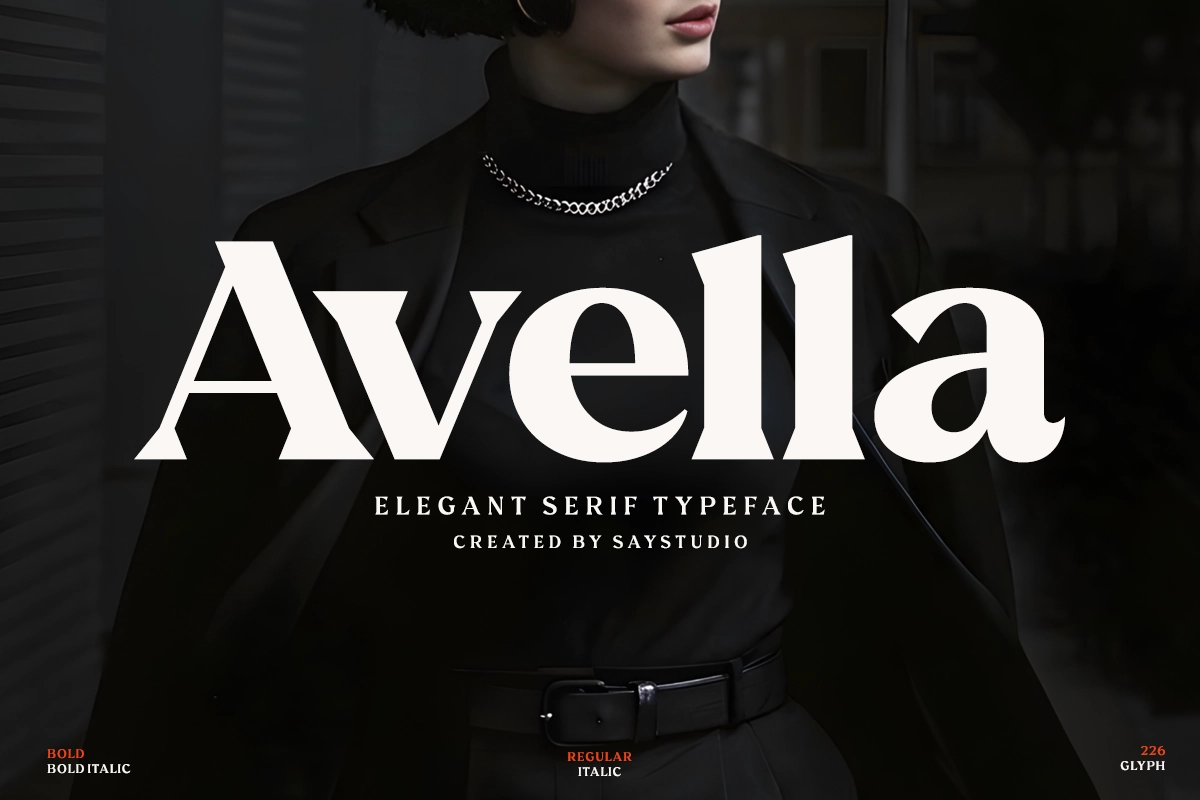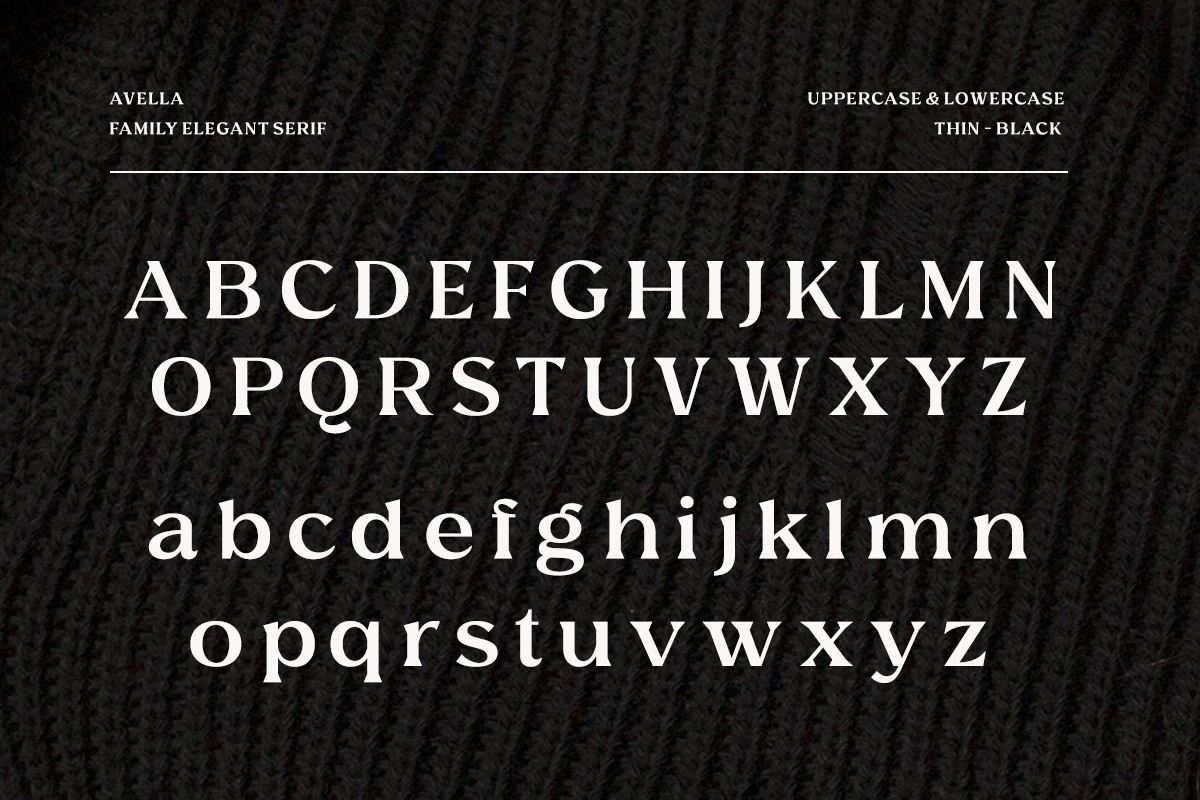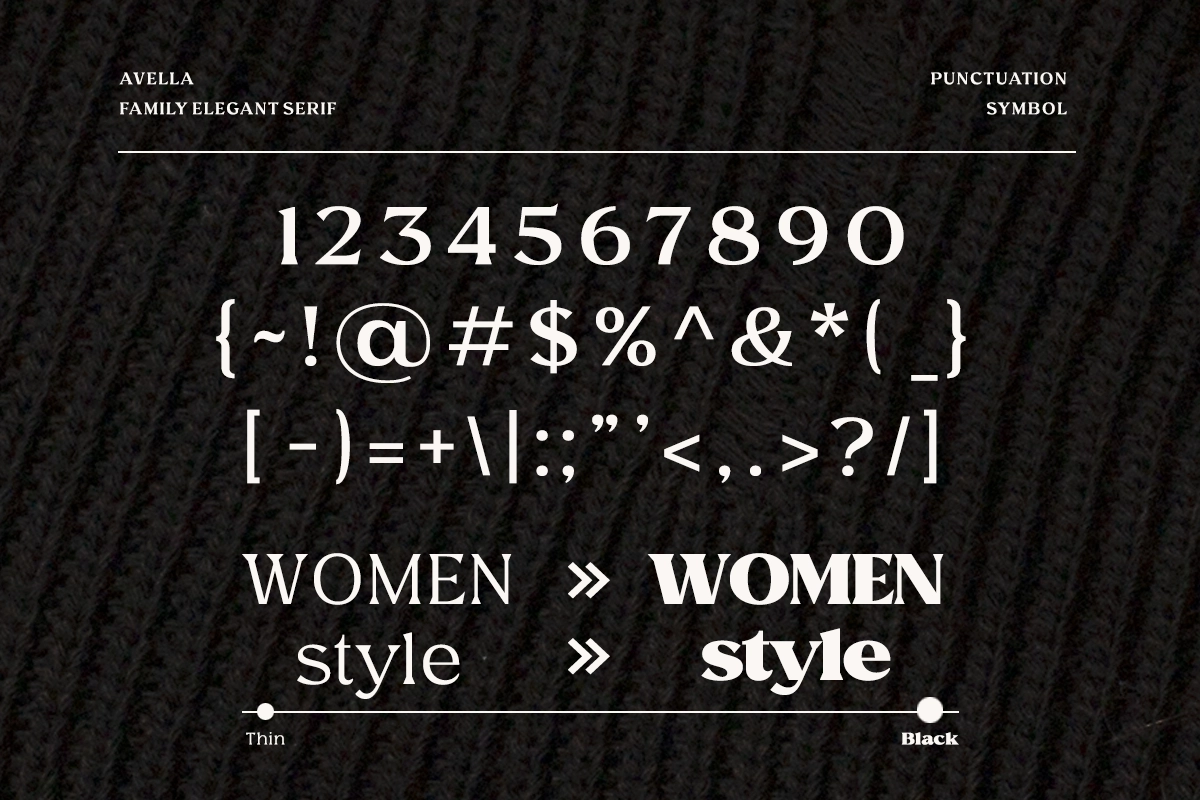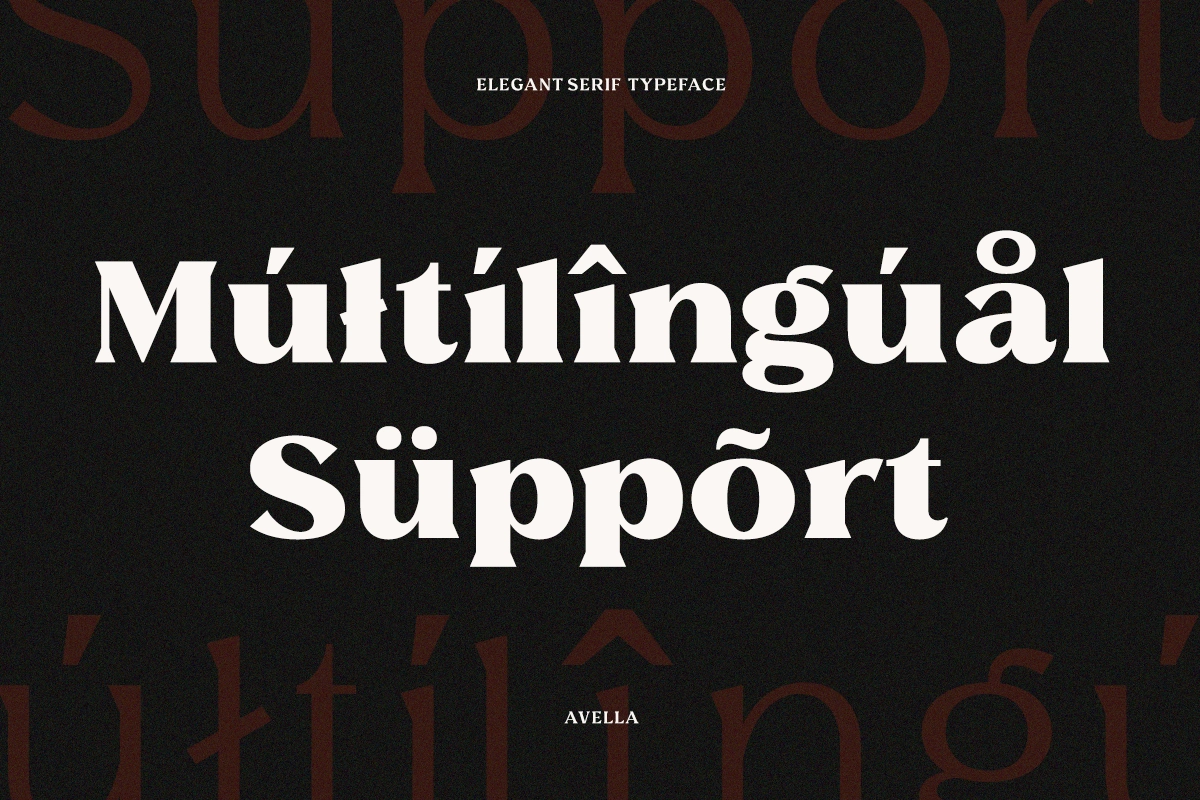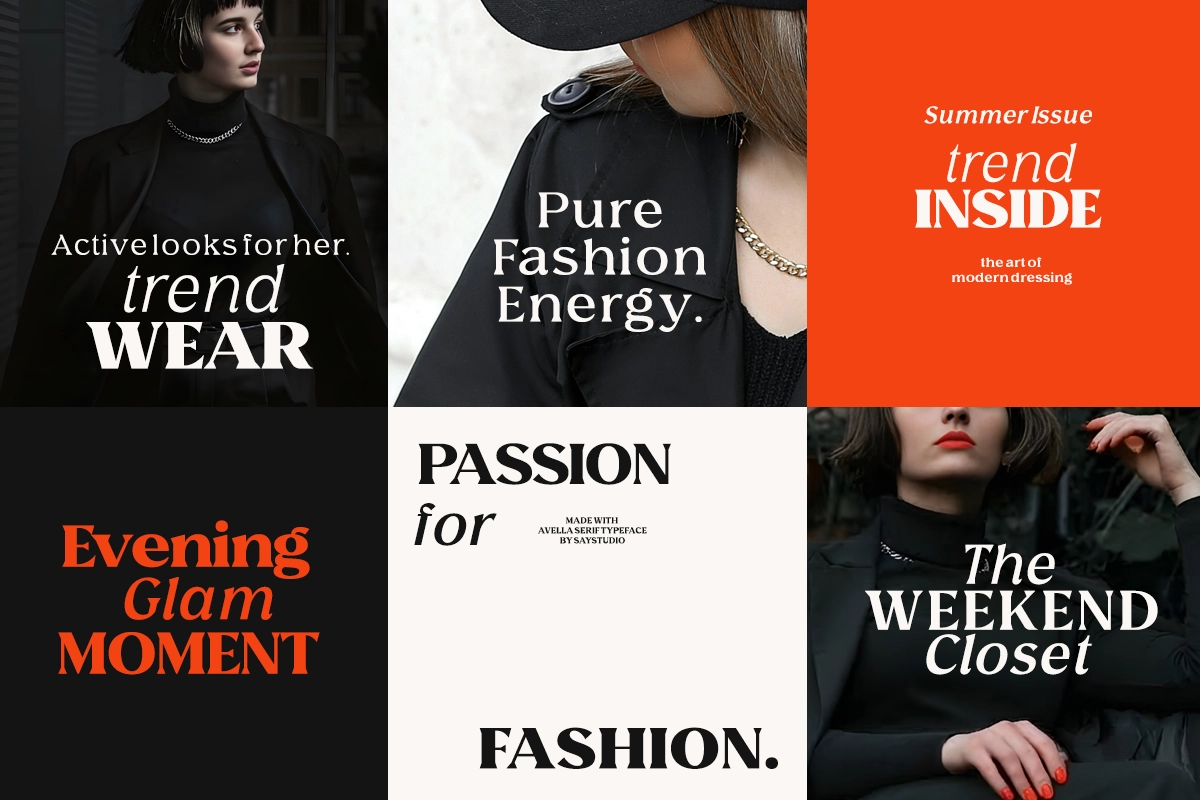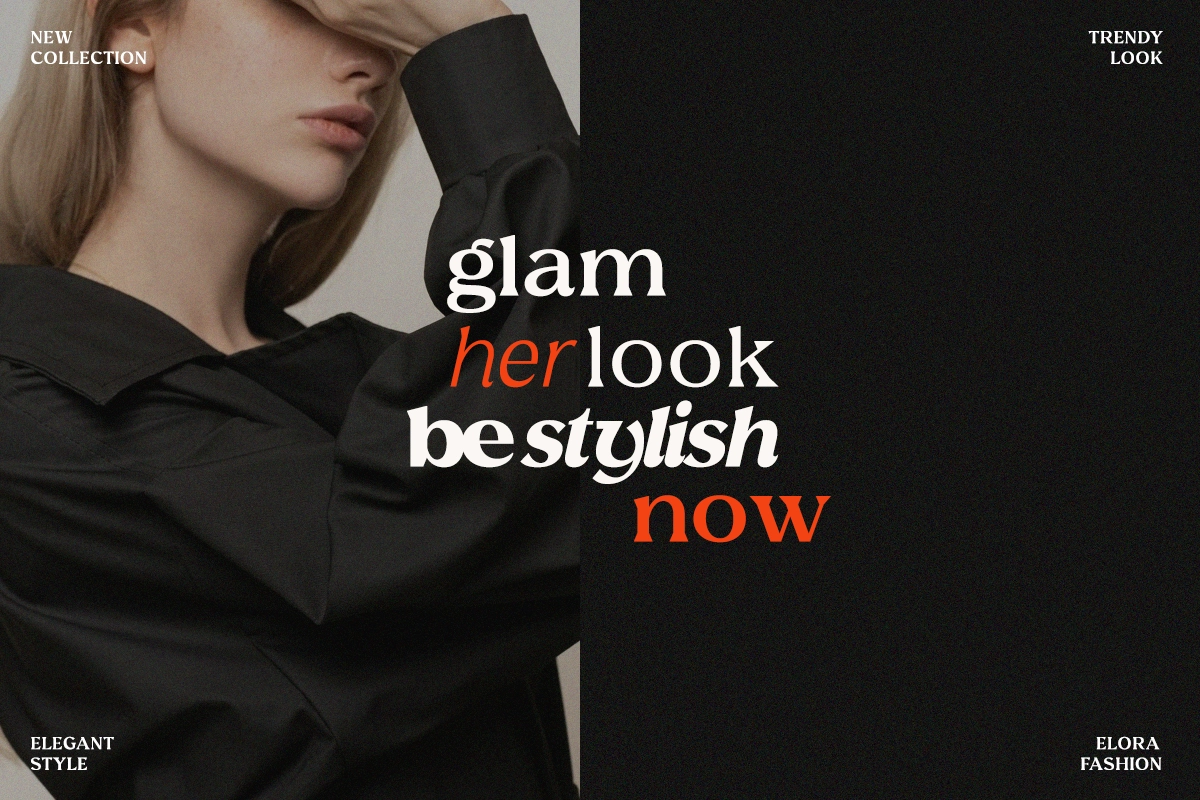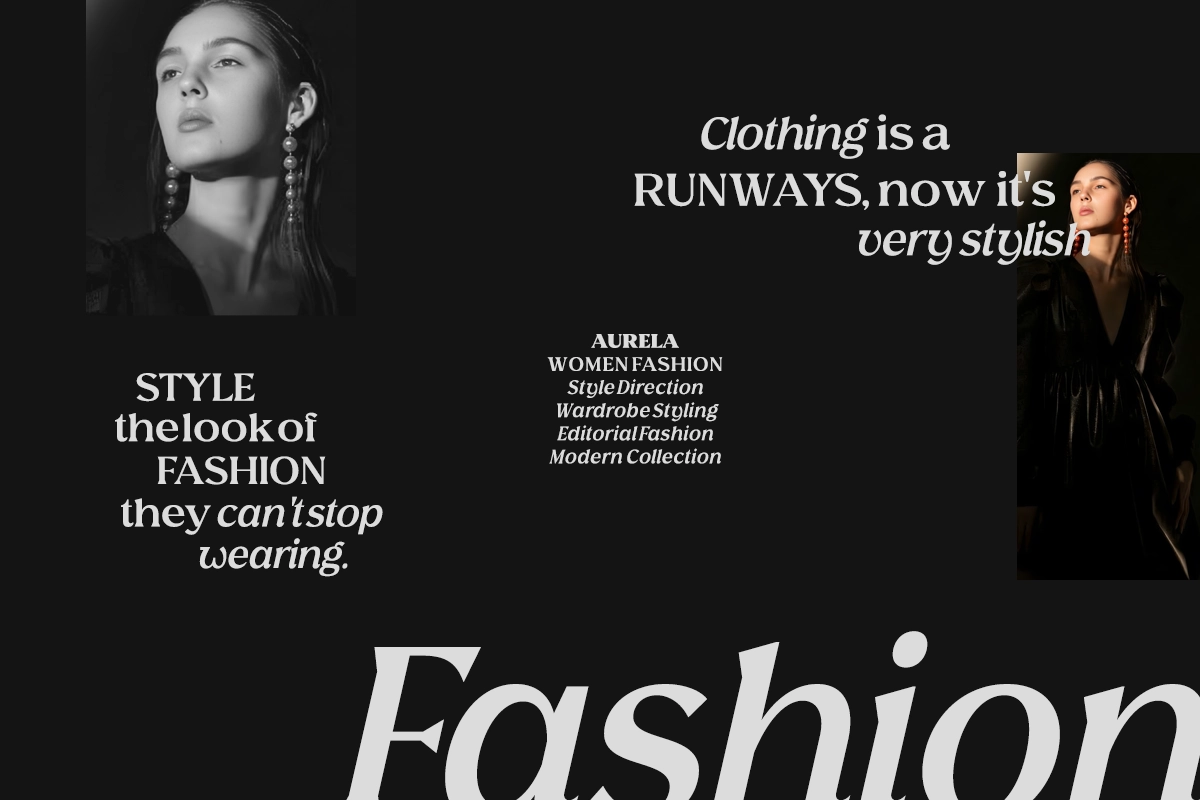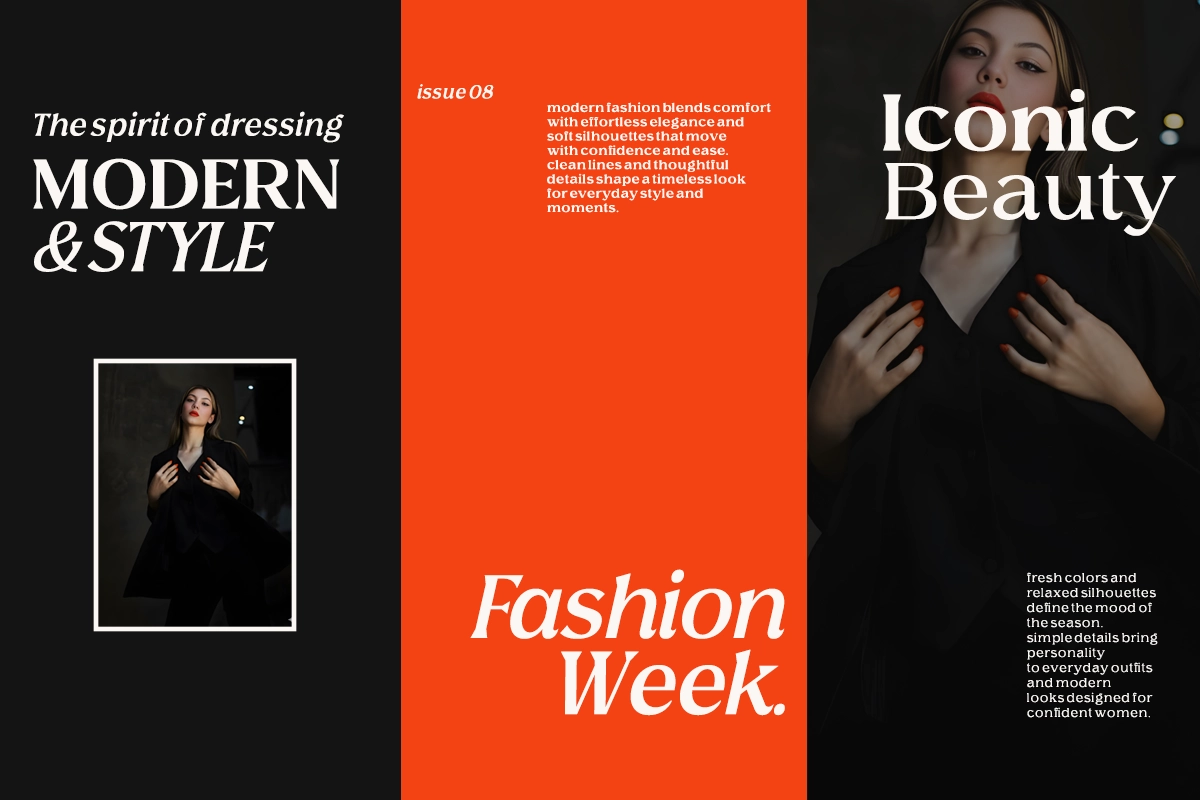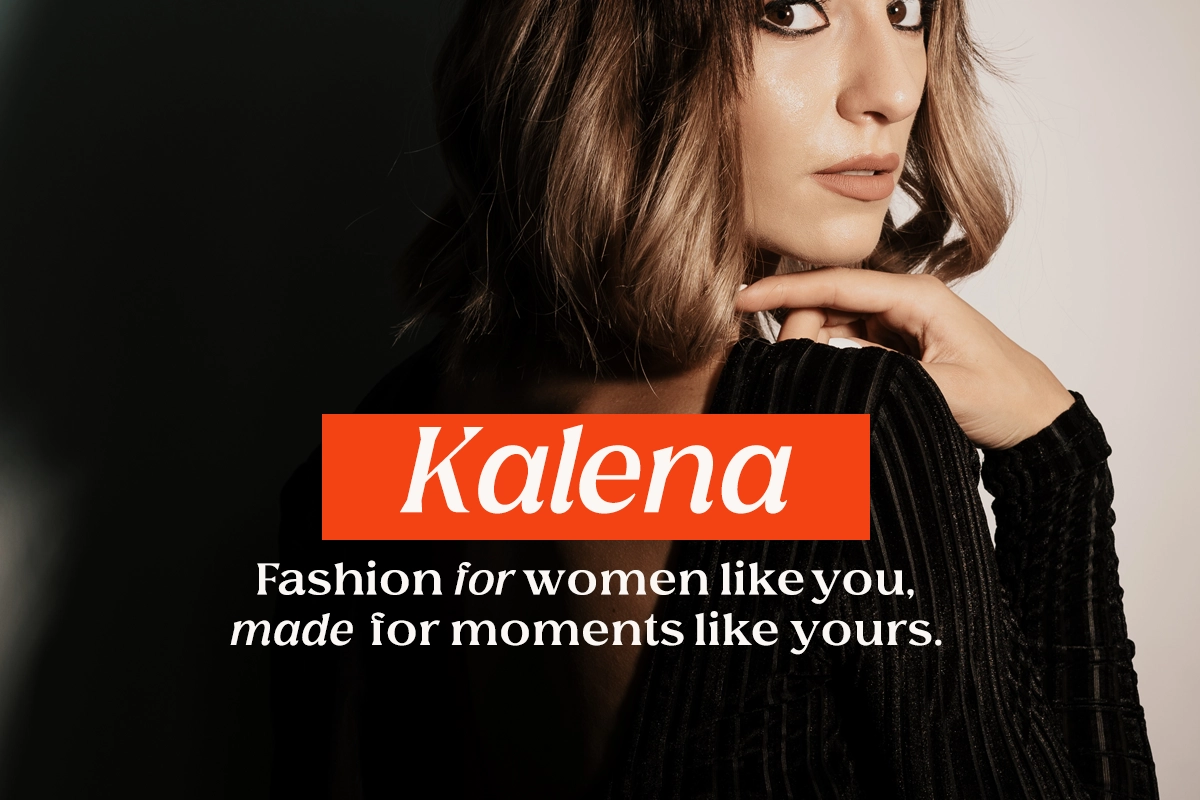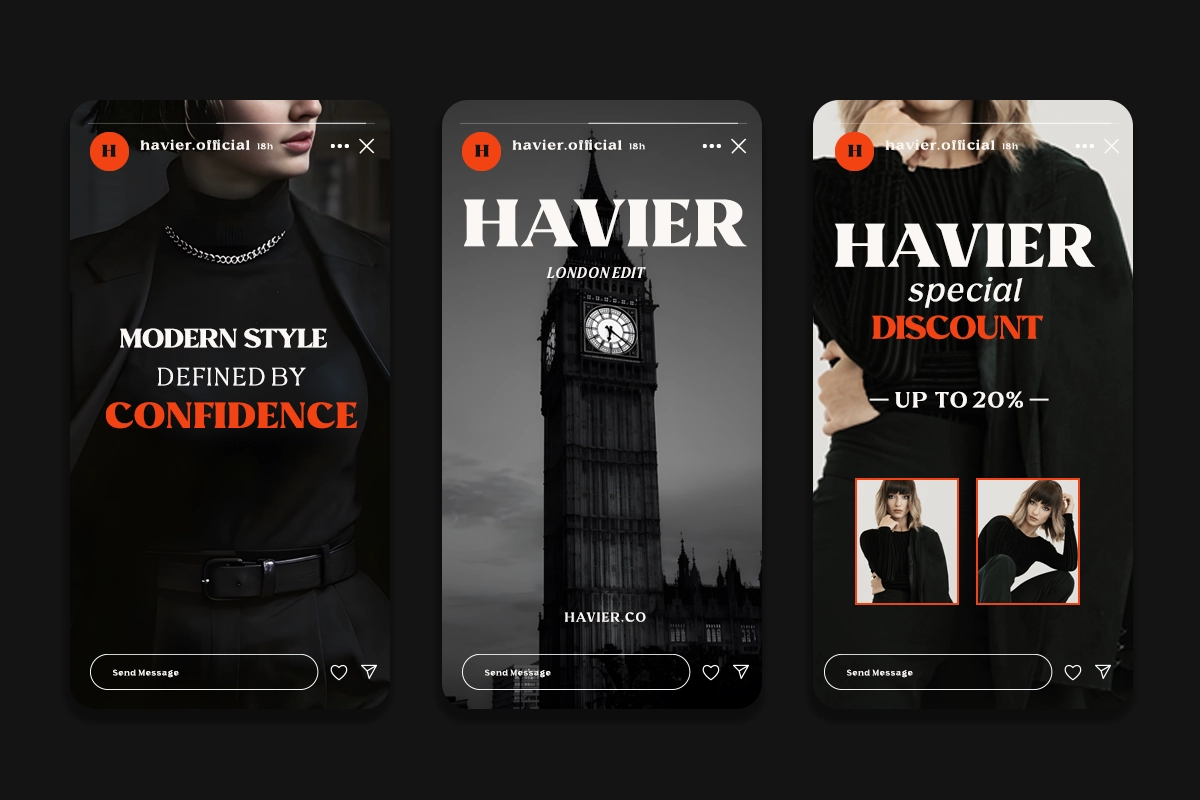
Avella - Luxury Fashion Serif Typeface
Avella, Luxury Fashion Serif Typeface reflects the elegance of high-fashion editorials and classic Didone typography, with sharp contrast, sculpted serifs, and poised proportions reminiscent of luxury magazine mastheads and couture branding. It lends itself to fashion campaigns, editorial spreads, premium packaging, beauty branding, logo design, and refined advertising layouts.
• Regular & Italic styles
• Numerals & punctuation